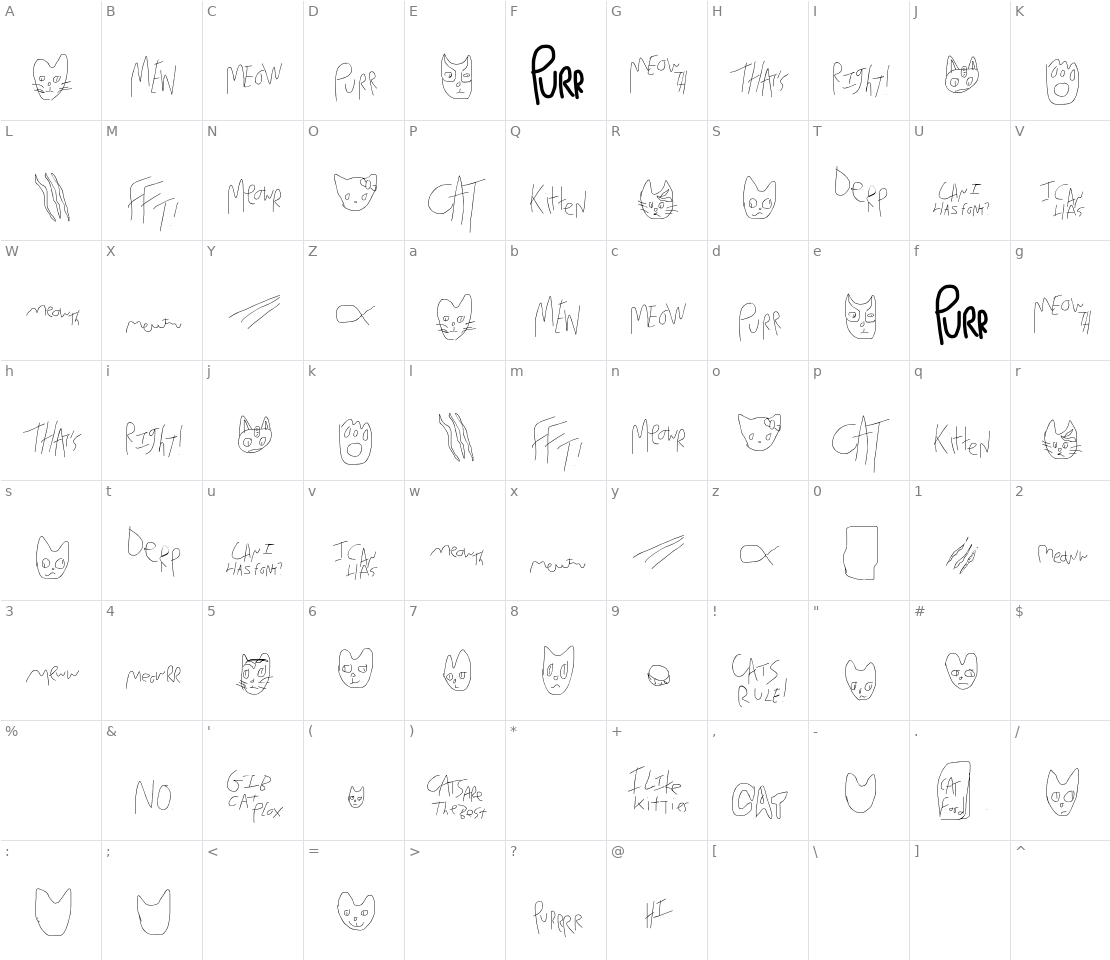
Mew Too CatDings
Mew Too CatDings is a dingbat font from KineticPlasma Fonts filled with hand-drawn cat illustrations, each with a thin, sketchy line quality that feels genuinely personal rather than clip-art polished. The icons range from cute to whimsical, covering various feline poses and expressions. Useful for pet-themed projects, stickers, greeting cards, or anywhere a little cat personality needs to show up without words.